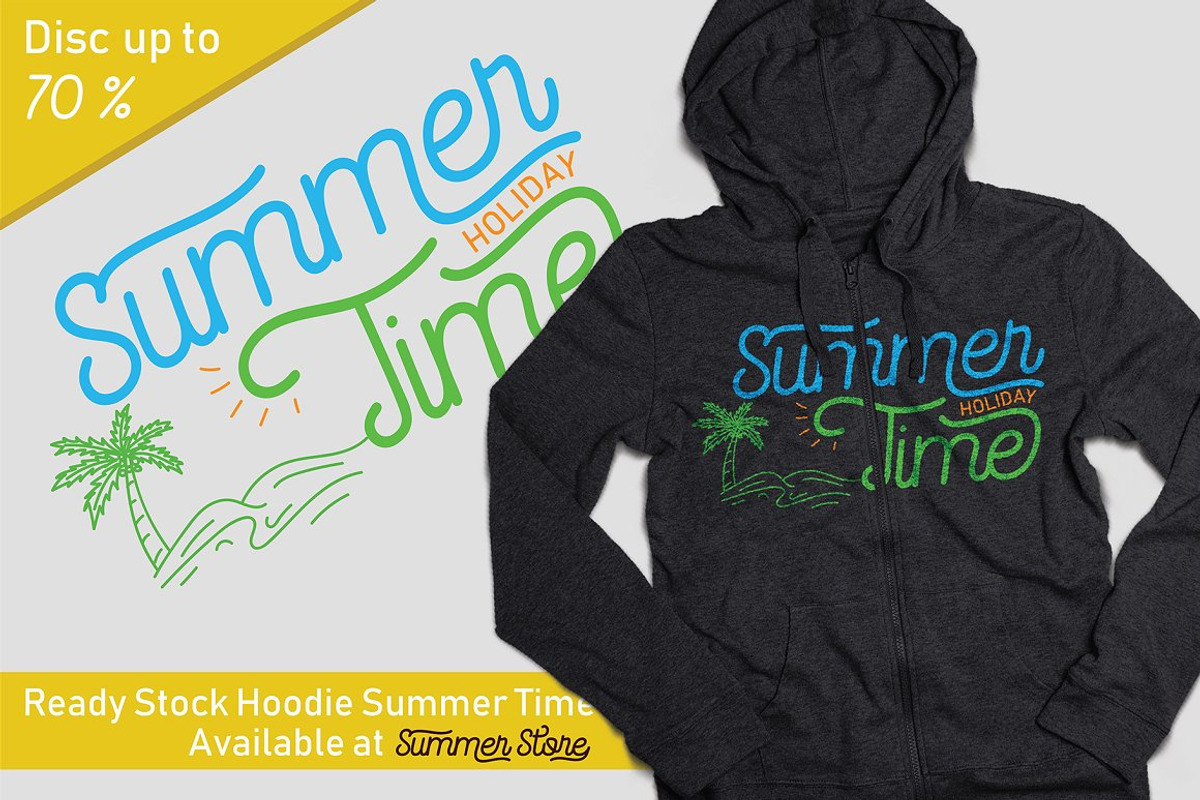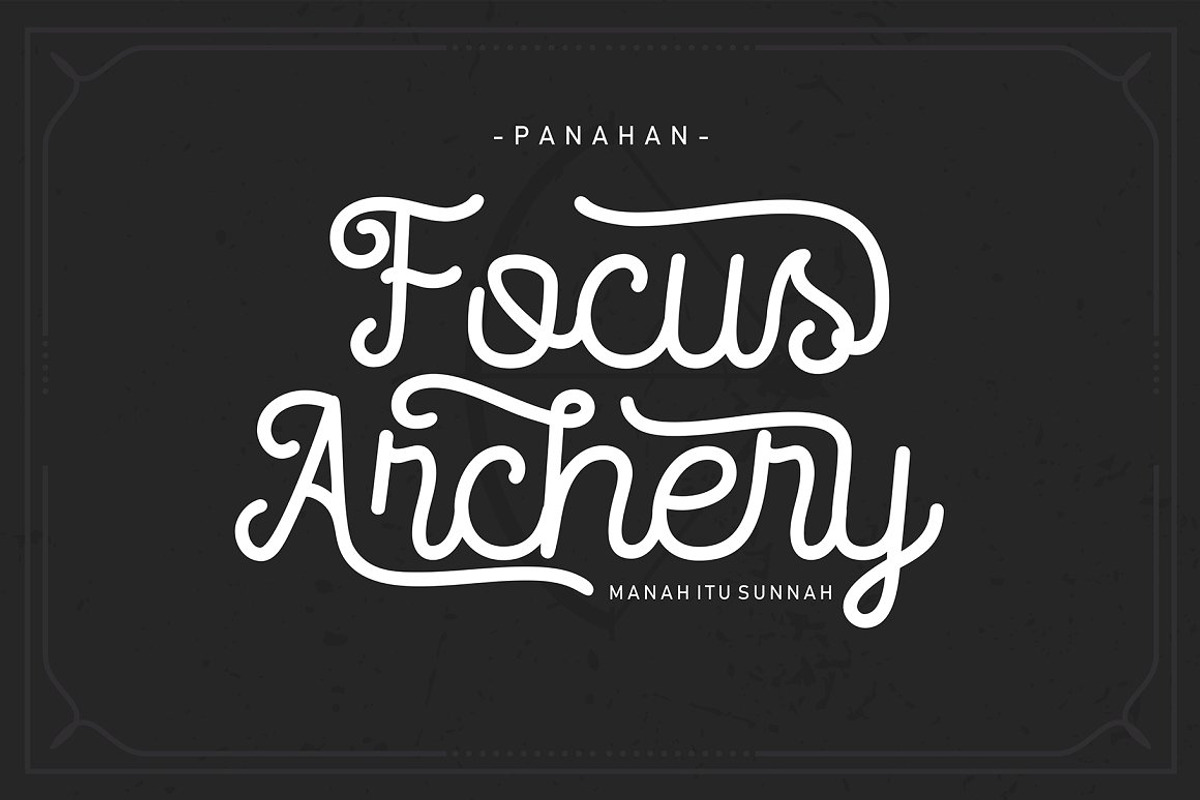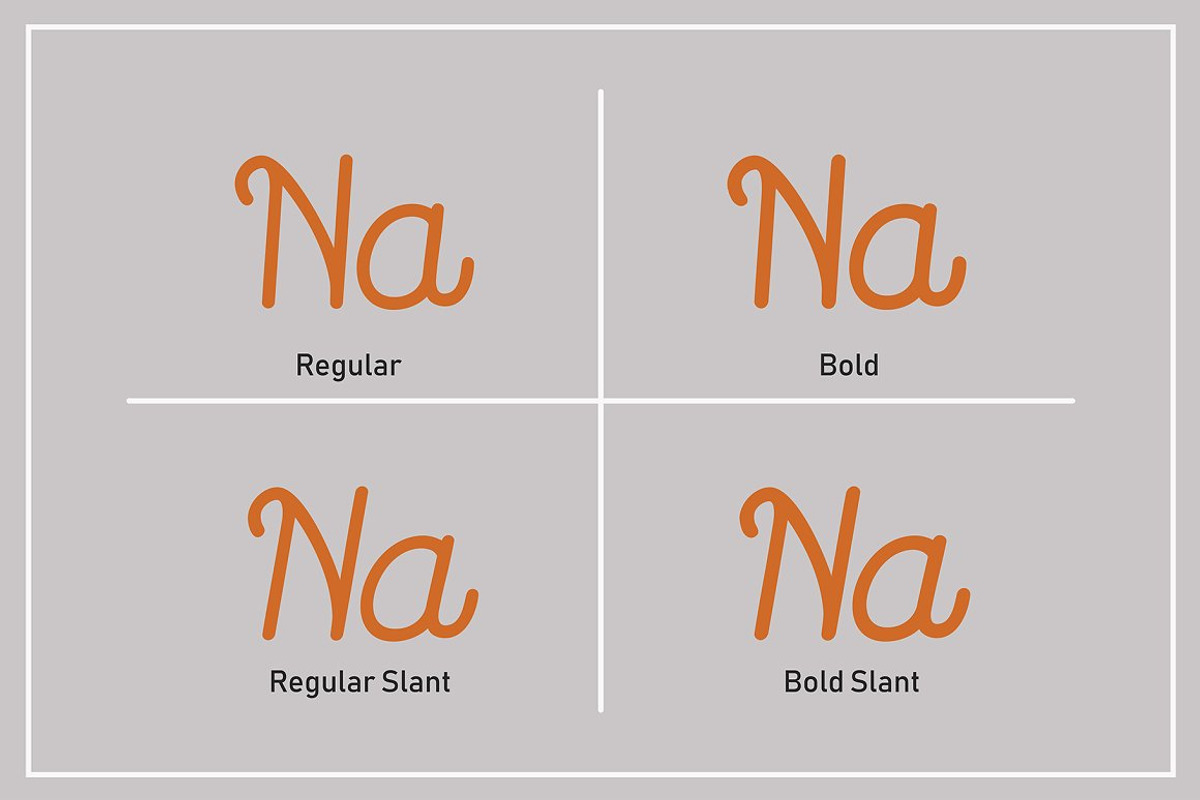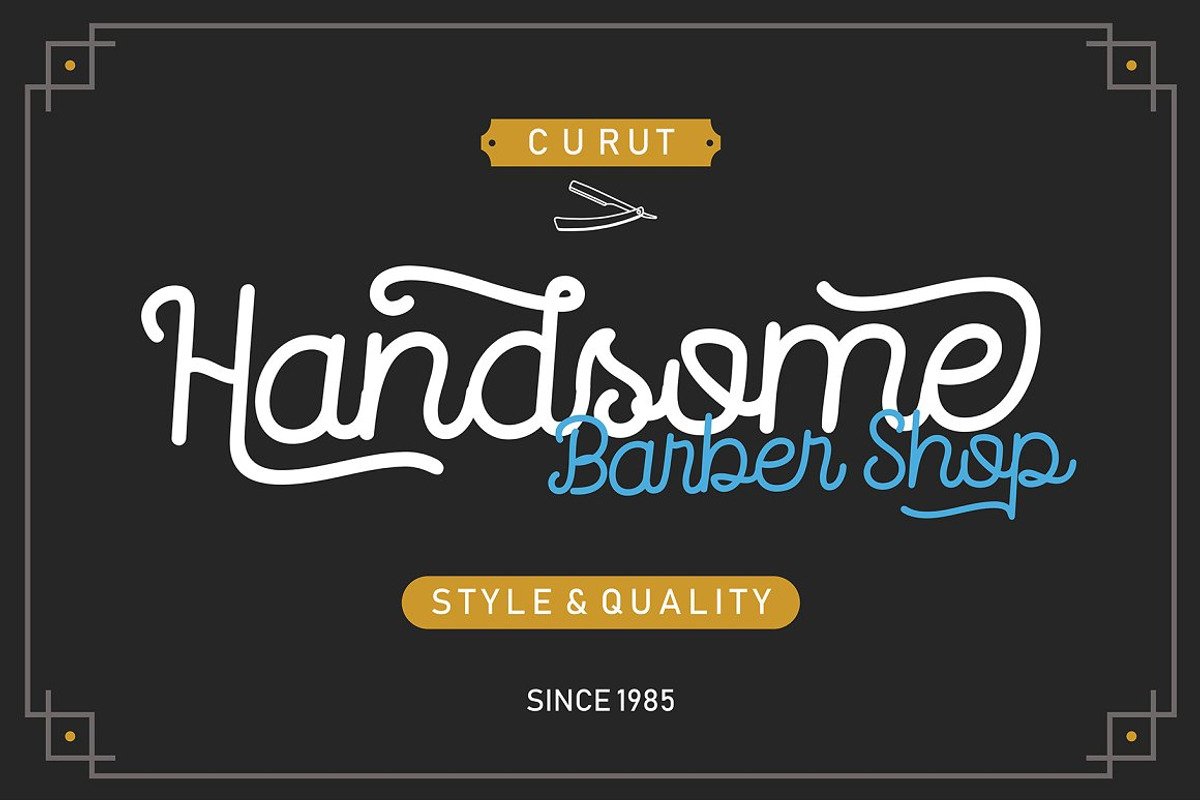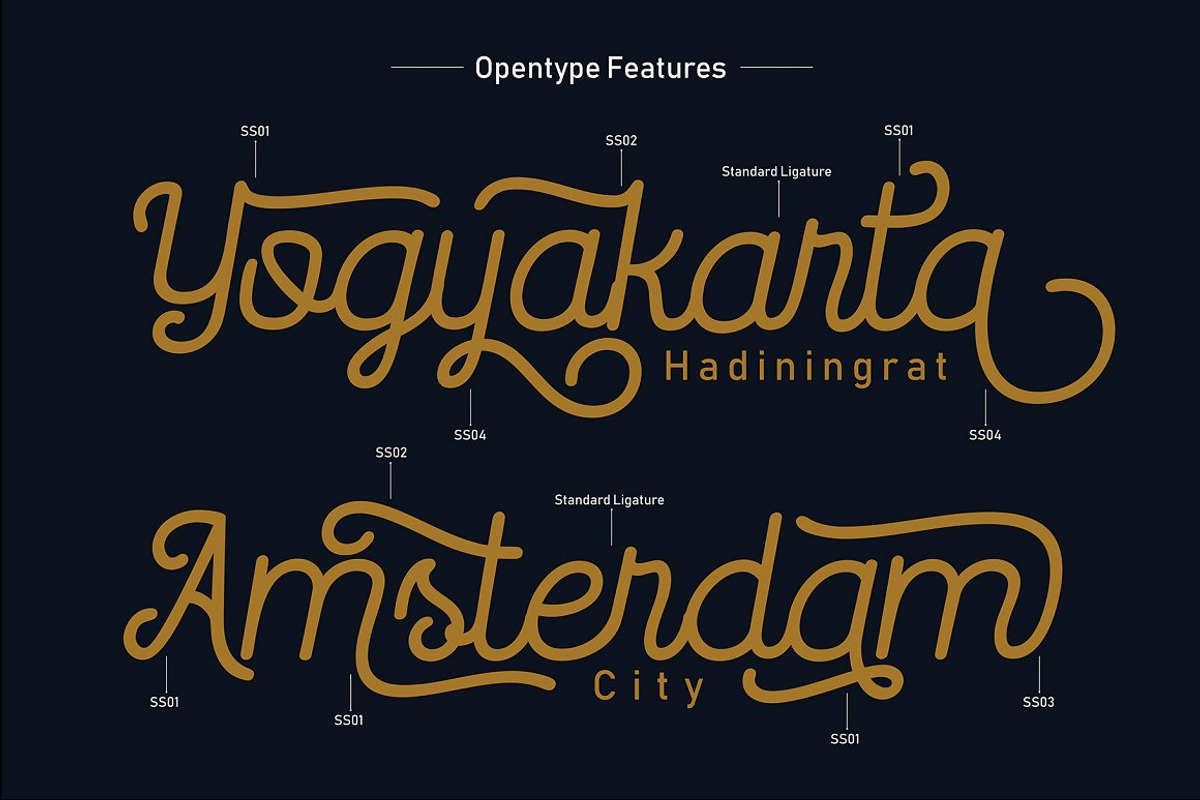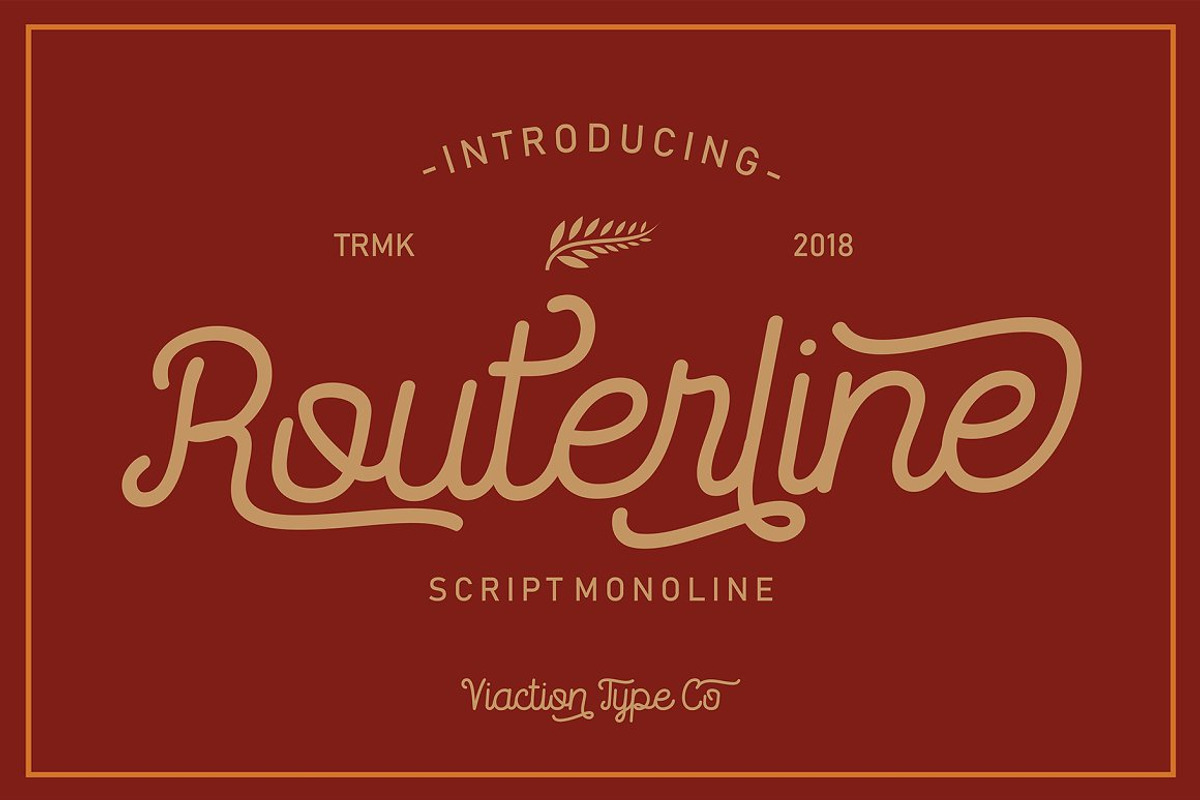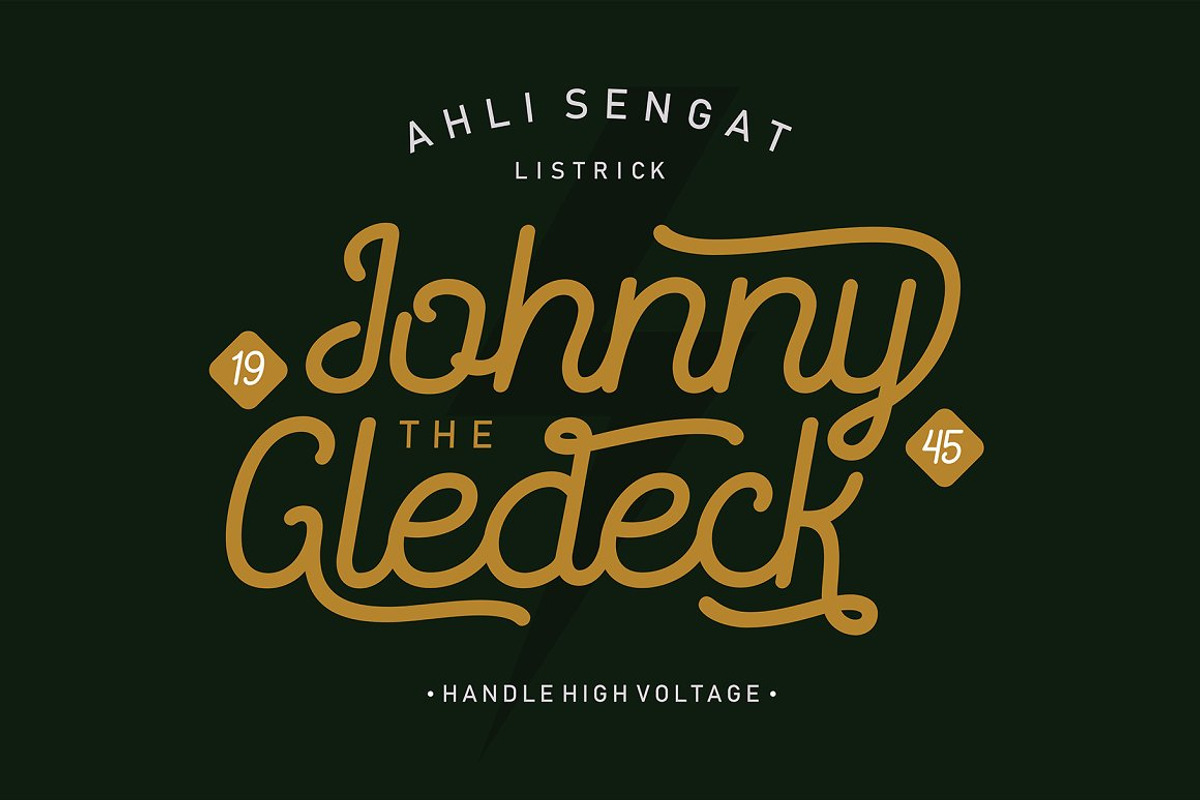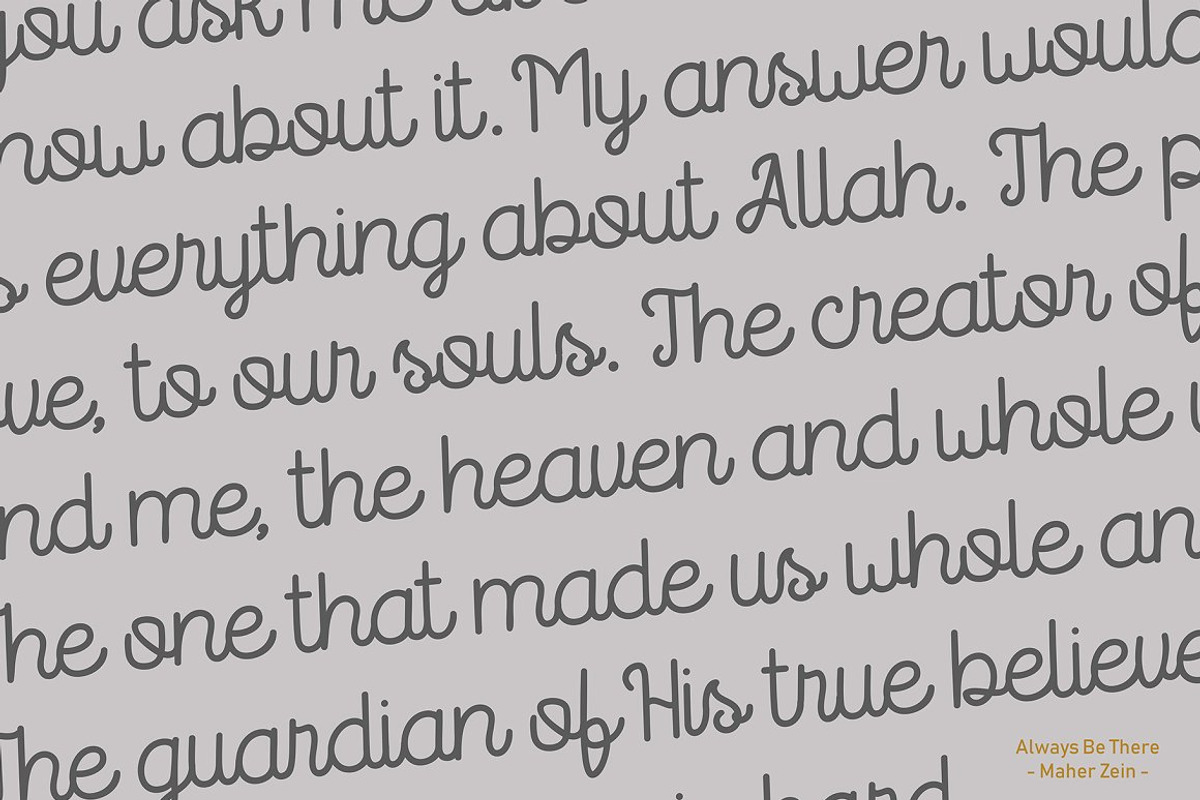
Routerline - Script Monoline Font
Routerline is a script monoline with 4 styles, nice applied in various products. Complete with multilingual characters, ligature and alternate. It is suitable for quote, clothing design, vintage logo, label, poster, packaging design and other designs.
- Complete with multilingual characters, ligature and alternate.